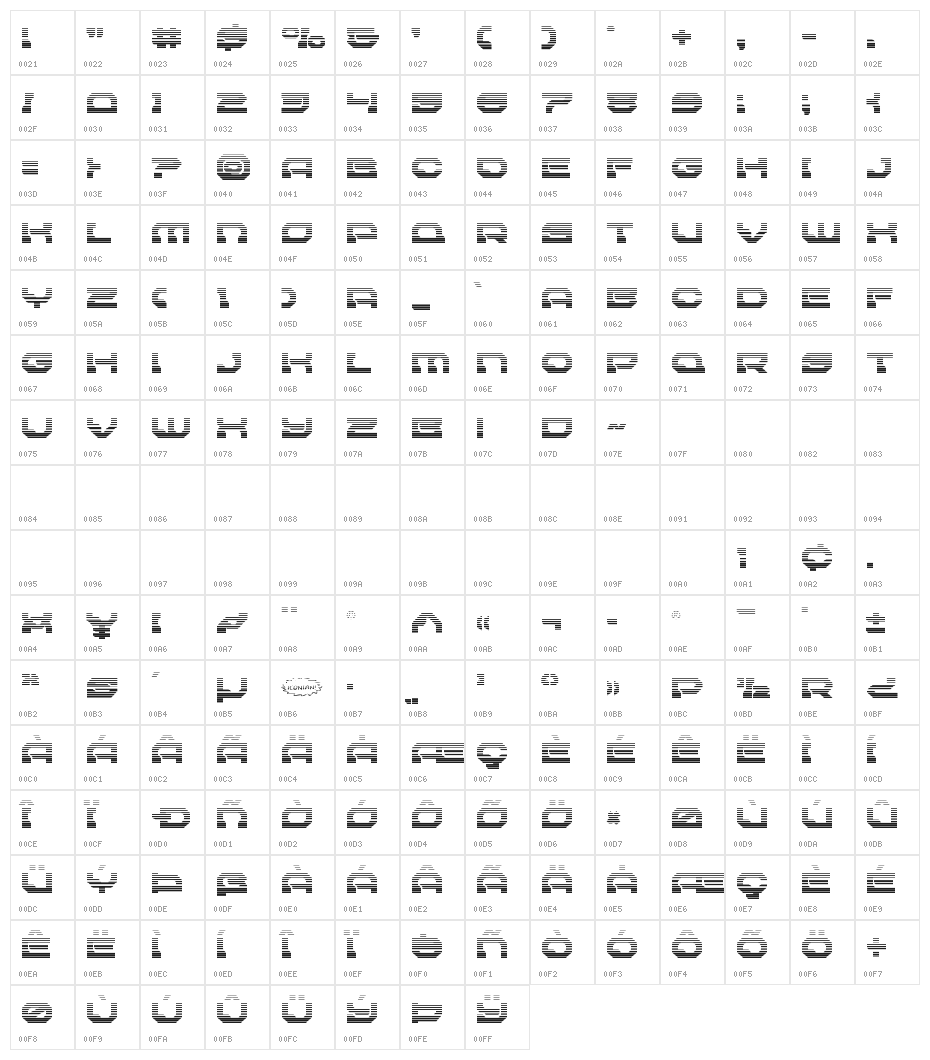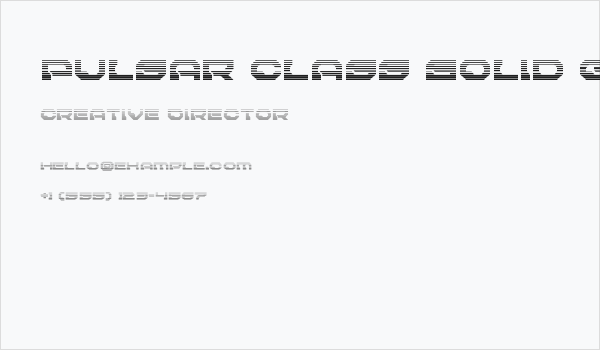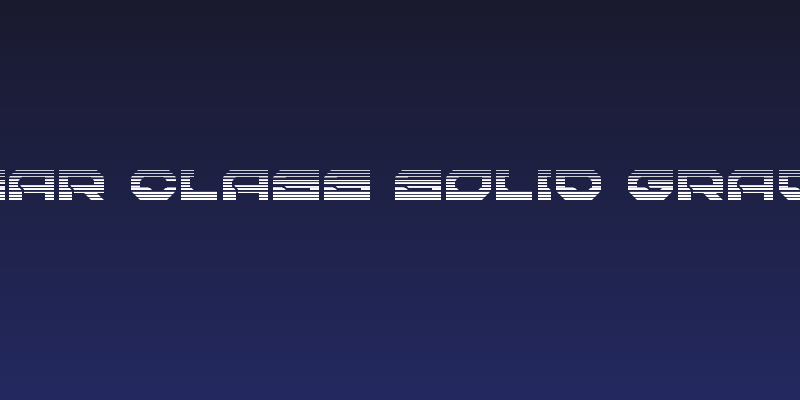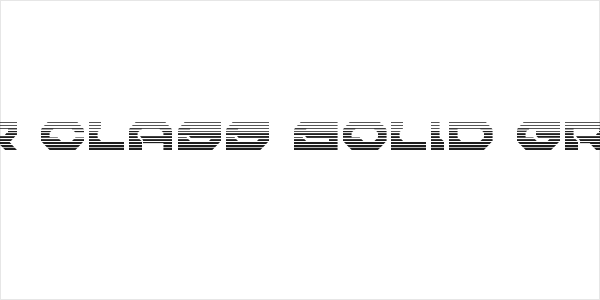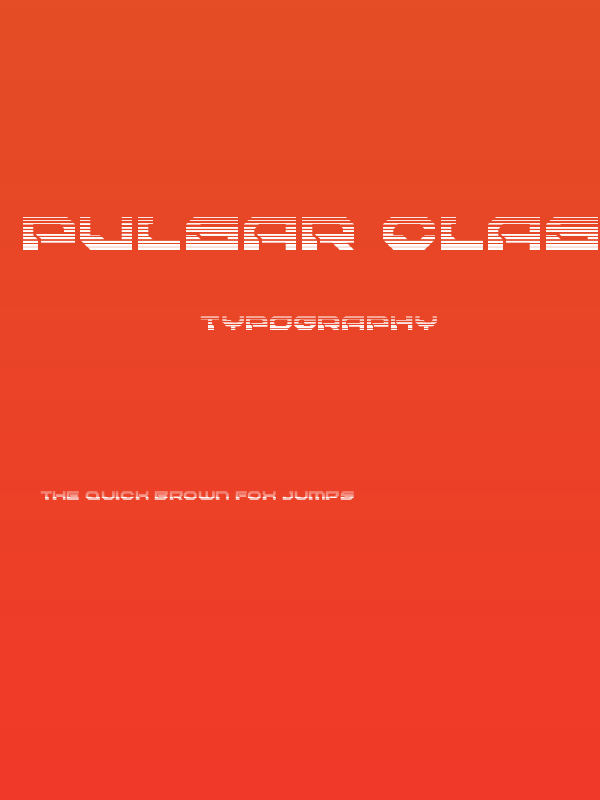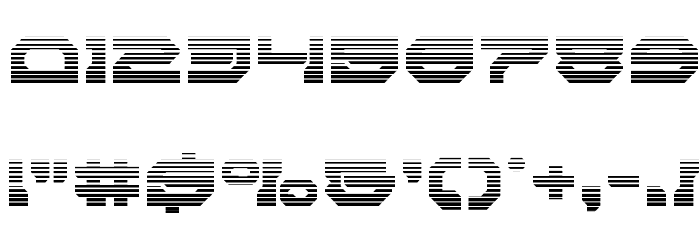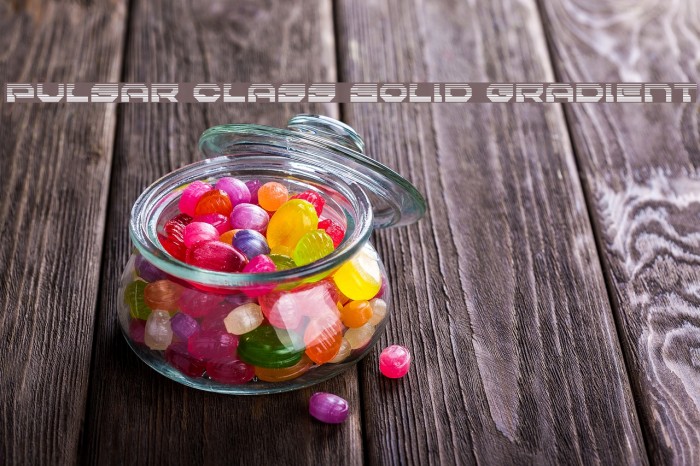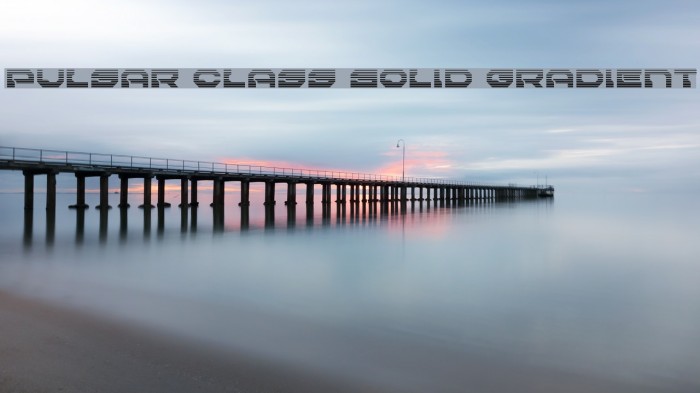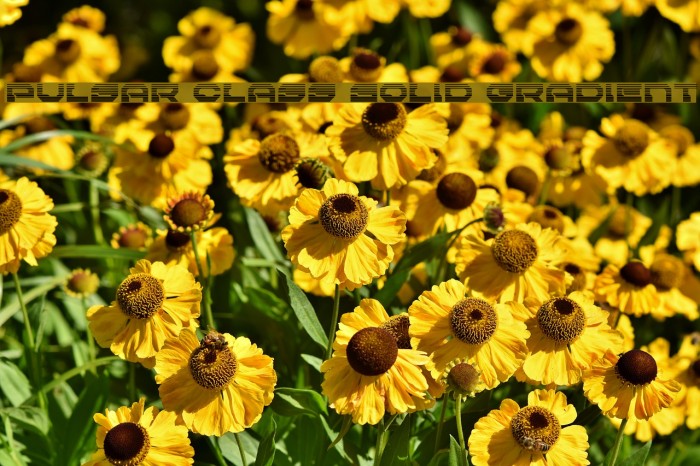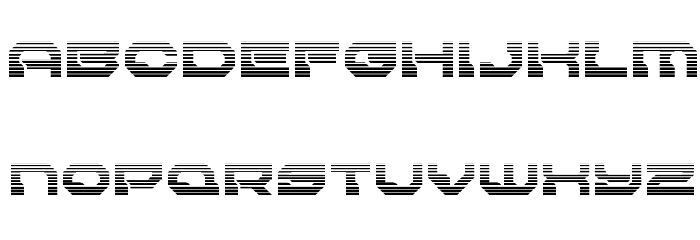
Pulsar Class Solid Gradient Font
Pulsar Class Solid Gradient Description
This font features a futuristic and digital aesthetic, characterized by its solid, gradient-like horizontal lines that create a sense of movement and depth. The uppercase and lowercase letters maintain a consistent width, giving the font a monospaced appearance, while the numbers and special characters follow the same design principles. The geometric shapes and sharp angles contribute to its modern and tech-inspired look, making it ideal for projects that require a cutting-edge and innovative feel.